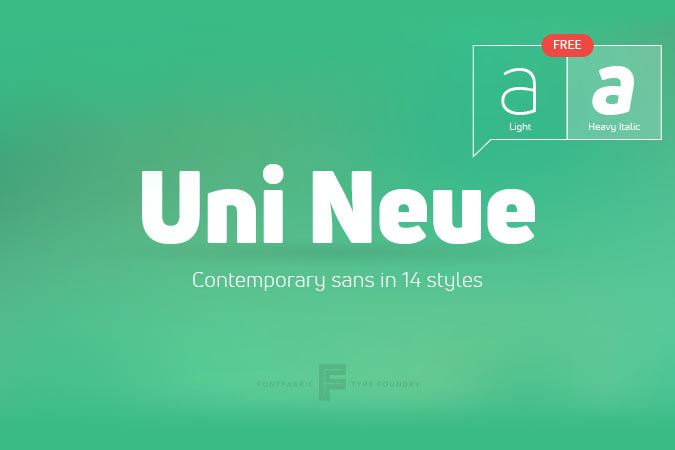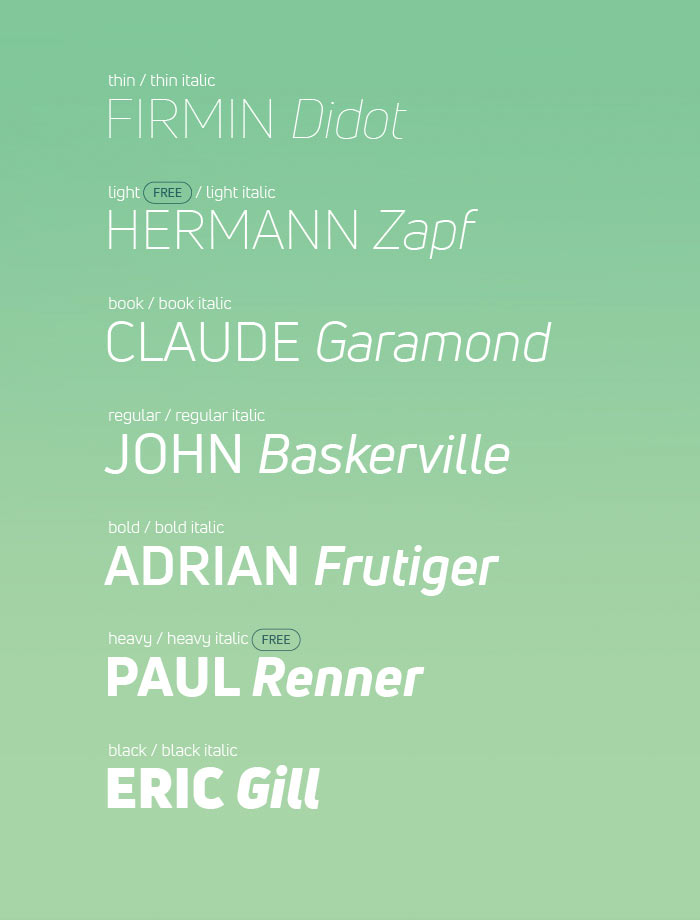
Uni Neue is the latest sans serif font brought to you by Font Fabric, redesigned from the original Uni Sans font. Uni Neue is а modern sans serif with a distinctive character and geometric feel. The rounded corners give a sense of friendliness to the viewer.
The entire font family consists of 7 weights plus italic styles, while you can download the light and heavy italic for free to test drive this new font.